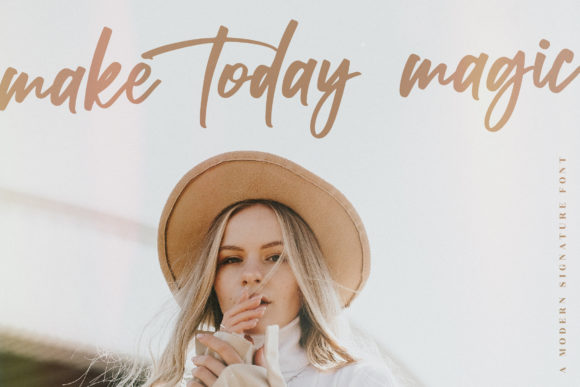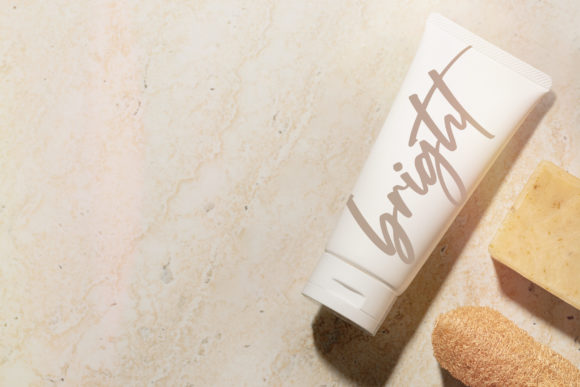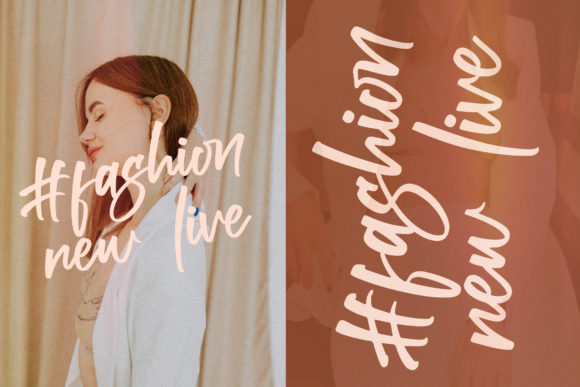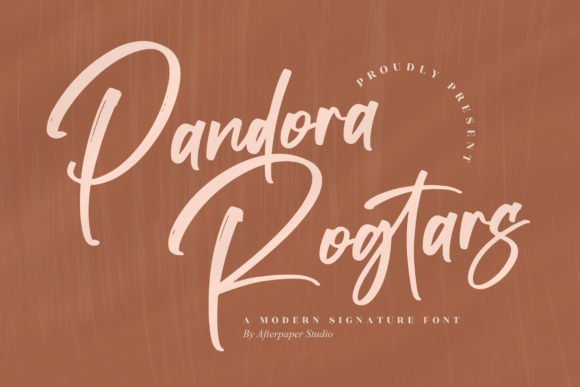
Introduction to Pandora Rogtars Font
Pandora Rogtars is a beautiful script font.
It is suitable for any projects such as: logos, branding projects, invitation cards, greeting cards, label, photography, watermark, special events, and all your other lovely projects that need a stylish vibe This font is PUA encoded which means you can access all of the glyphs and swashes with ease.
Pandora Rogtars Font offers exceptional quality and versatility, making it a valuable addition to your design toolkit. Whether you’re creating for personal projects or commercial use, Pandora Rogtars Font delivers professional results.